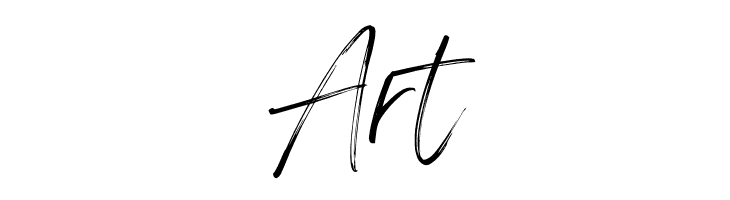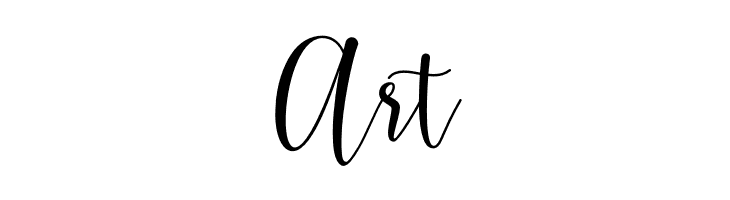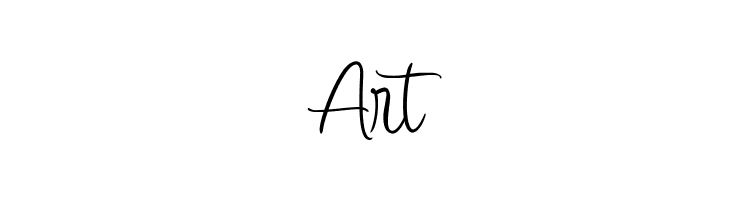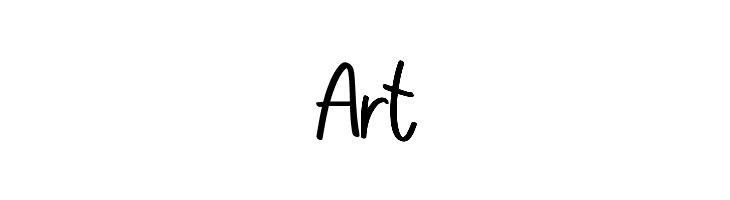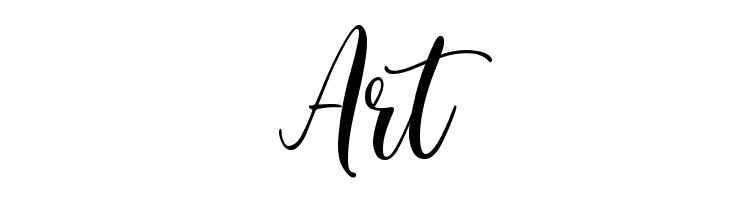
A flowing, cursive script with elegant loops and dynamic contrast.
A lively and elegant script font with fluid strokes and cohesive design.
A playful and elegant script font with flowing, cursive letterforms.
A playful, bold font with rounded, bubbly characters perfect for creative projects.
A playful, hand-drawn font with tall, narrow characters and a whimsical style.
A playful, whimsical font with rounded and angular elements, perfect for creative projects.
A playful handwritten font with lively, fluid letterforms and smooth strokes.
A playful, hand-drawn font with quirky serifs and a lively, cartoonish style.
A graceful and fluid handwritten font with elegant, dynamic strokes.